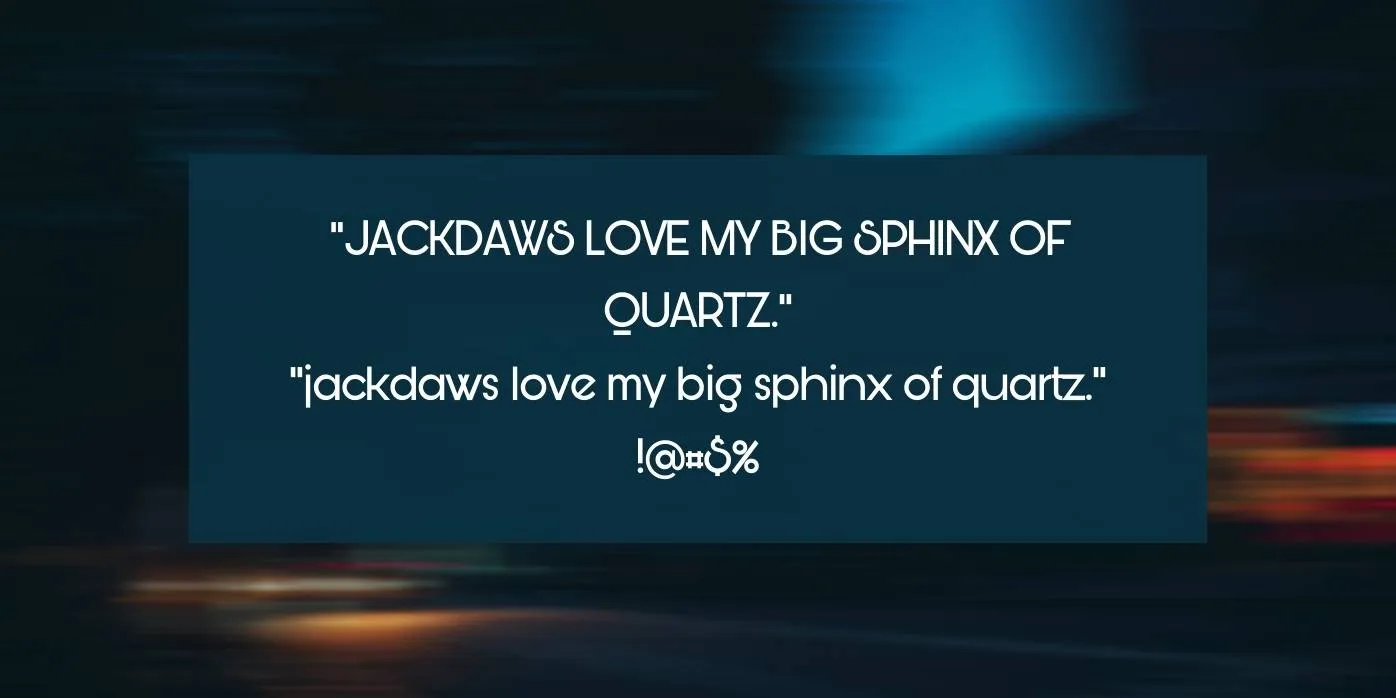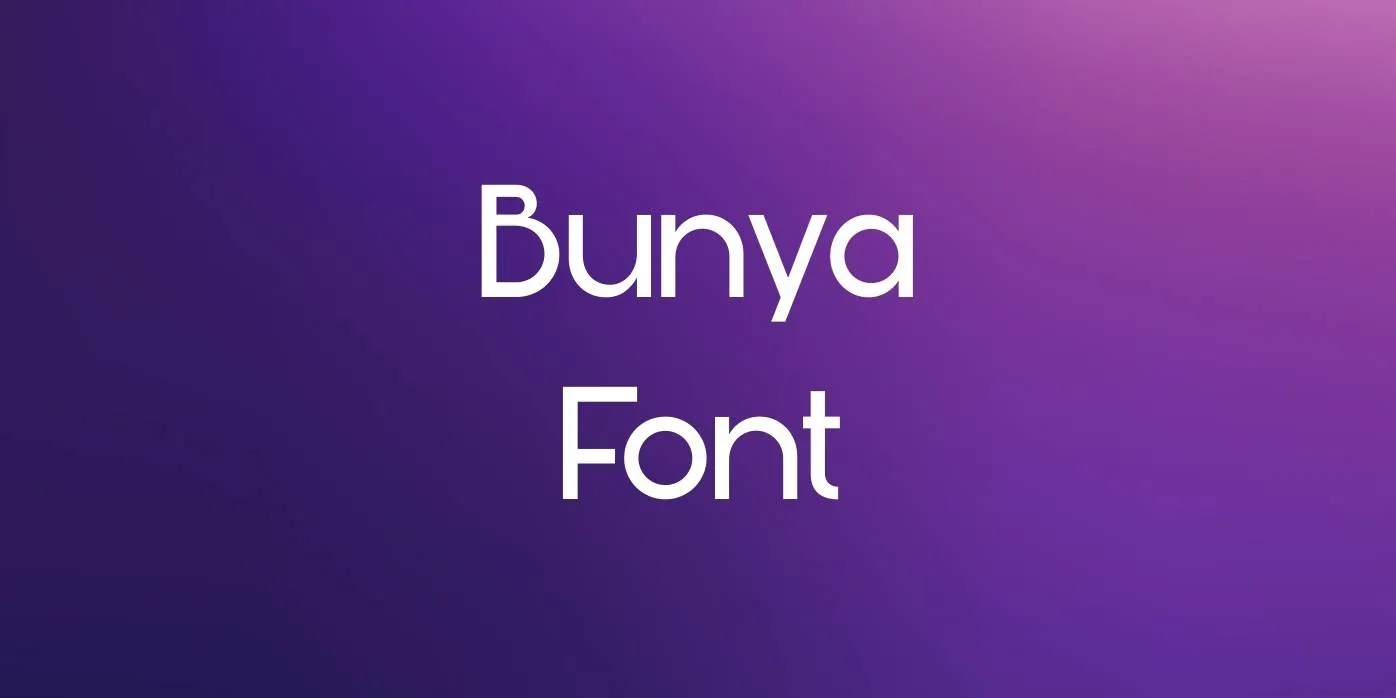
Bunya Font
In this post, we introduce Bunya Font which belongs to the sans serif family. This typeface was developed by Mans Greback.  It is available in three weights- light, regular and bold. This tremendous font has a unique design with interesting features such as strong vertical strokes, wide counters, and a large x-height. This makes it highly legible and perfect for use in both body text and headlines.
The wide space between its characters also gives it a modern and stylish look. This stylish font is available in both TTF and OTF formats. It supports Latin, Cyrillic, and Greek languages. Its similar bmw font is well suitable for various designs.  The copy-and-paste function of this typeface is classic.